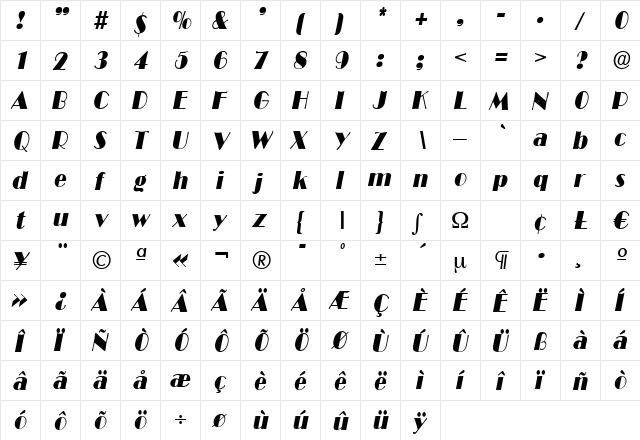
MichelleBecker Italic
Design Context for MichelleBecker Typeface
MichelleBecker is a composed and adaptable typeface that performs quietly and consistently across a wide range of design contexts. The slanted form adds forward momentum and visual energy.
Pro Tip: Try MichelleBecker for annotation and caption copy alongside an upright companion — the contrast in angle creates a dynamic but ordered typographic system.